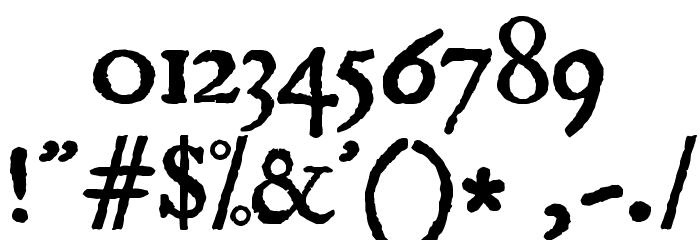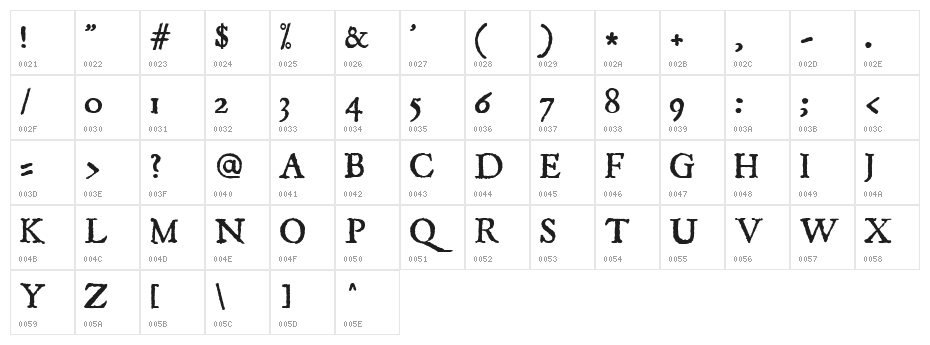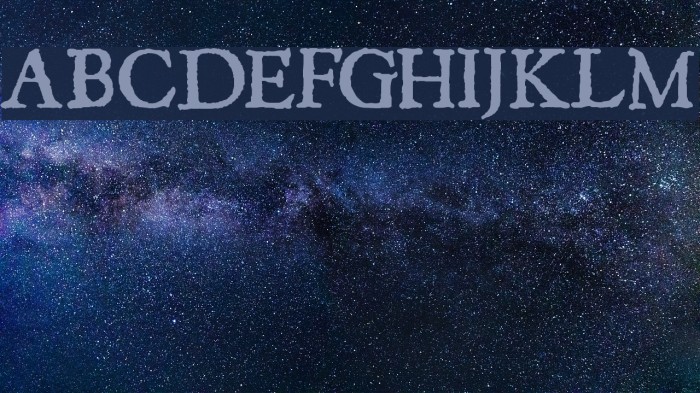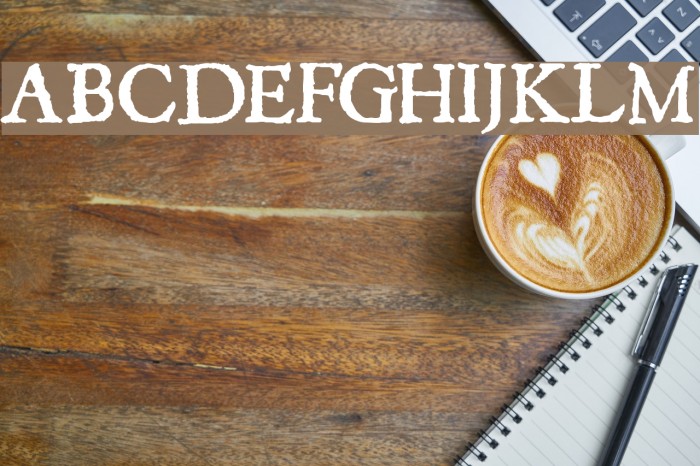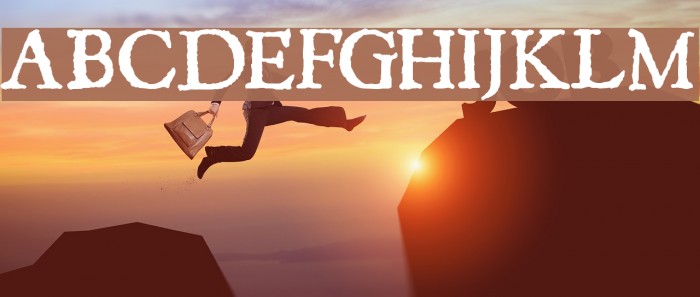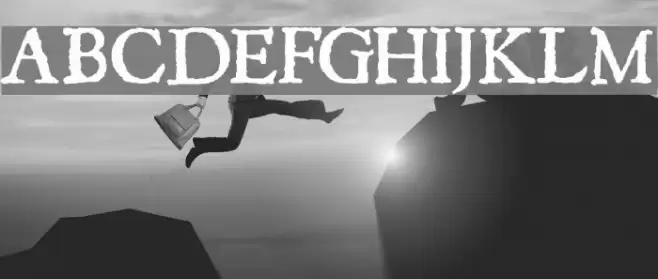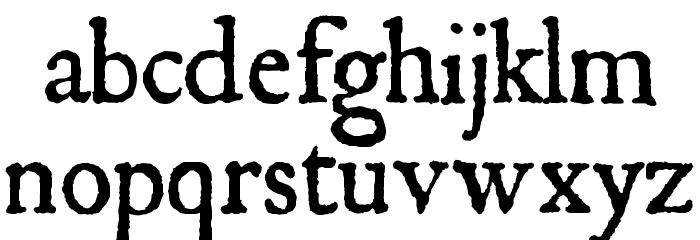
JSL Ancient Font
JSL Ancient Description
This font exudes a historical and ancient charm, reminiscent of classical calligraphy with its uneven strokes and slightly rough edges. The uppercase letters are bold and commanding, while the lowercase letters maintain a consistent style with a touch of elegance. Numbers and special characters follow the same aesthetic, providing a cohesive look. The font's texture suggests a hand-crafted feel, making it ideal for projects that require a vintage or historical touch.
| Use Case | Headlines, Logos, Artistic projects |
| Proposed Projects | Ideal for historical documents, vintage-themed designs, book covers, and artistic projects that require a classical touch. |